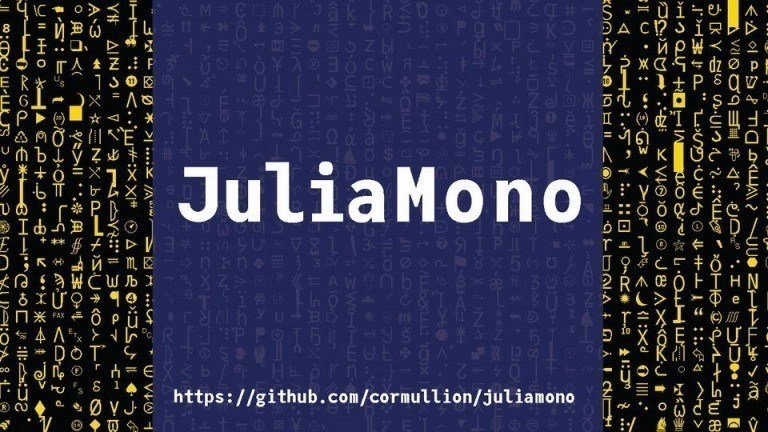
JuliaMono Sans Serif Font Family
JuliaMono Sans Font designed to be fit for corporate nuances. its letterforms shaped in tune with technological feels. Its shown simplicity, minimal stroke contrast, moderate spacing. Its consist of 6 styles from Regular to Black, contain 470+ glyphs that support broad latin language, contain variation of linning figures, and some alternates glyphs.